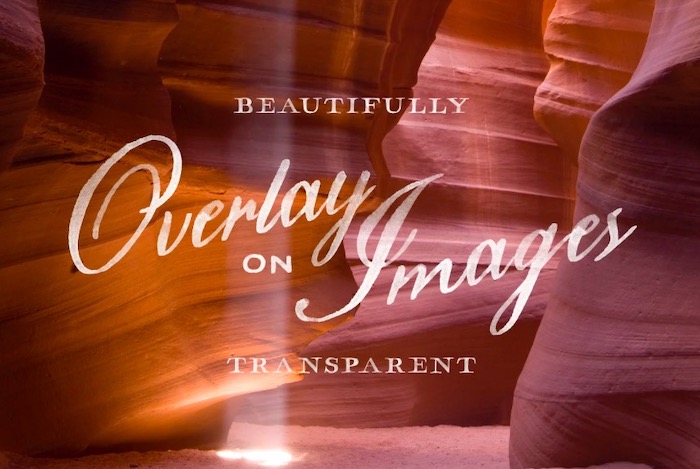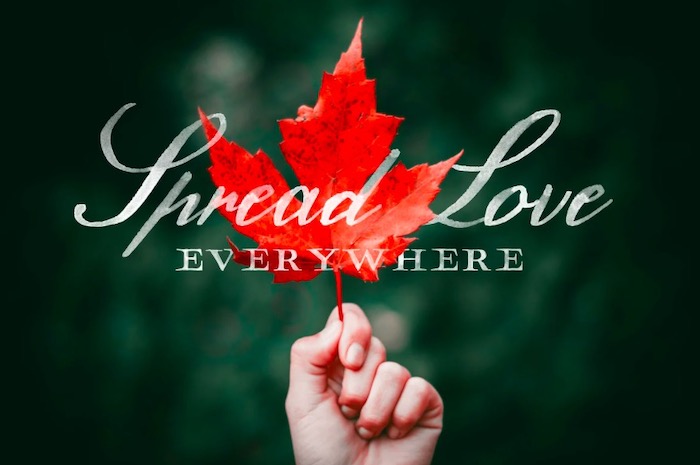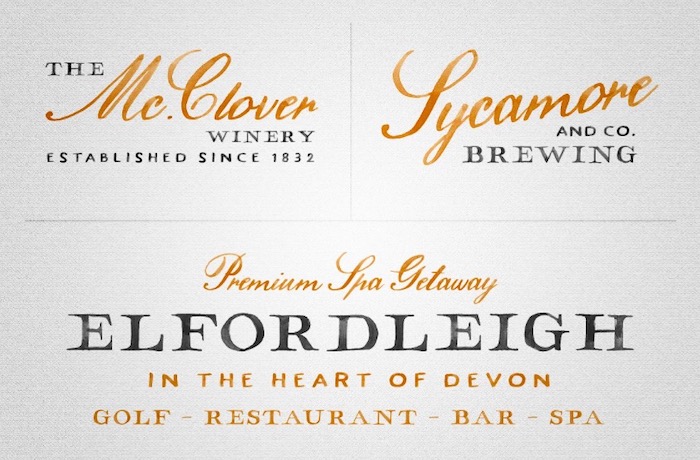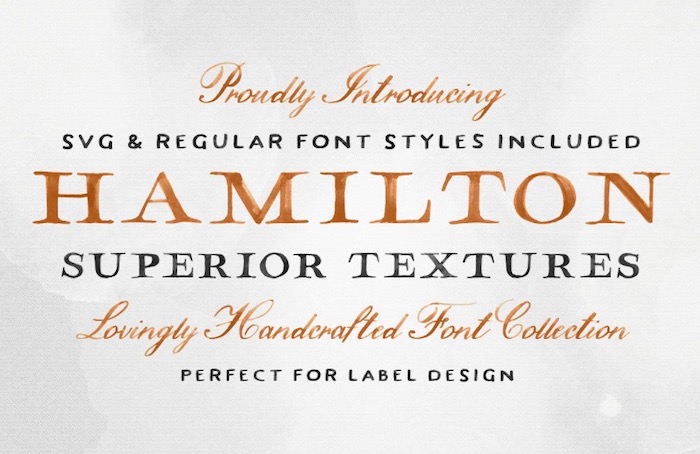
Hamilton is an elegant versatile SVG Font Family that features a display, script, sans serif, and serif style. It features great textures that are handwritten by hand and it’s perfect for invitations, logos, packaging design, and more.
Hamilton Display Serif Font